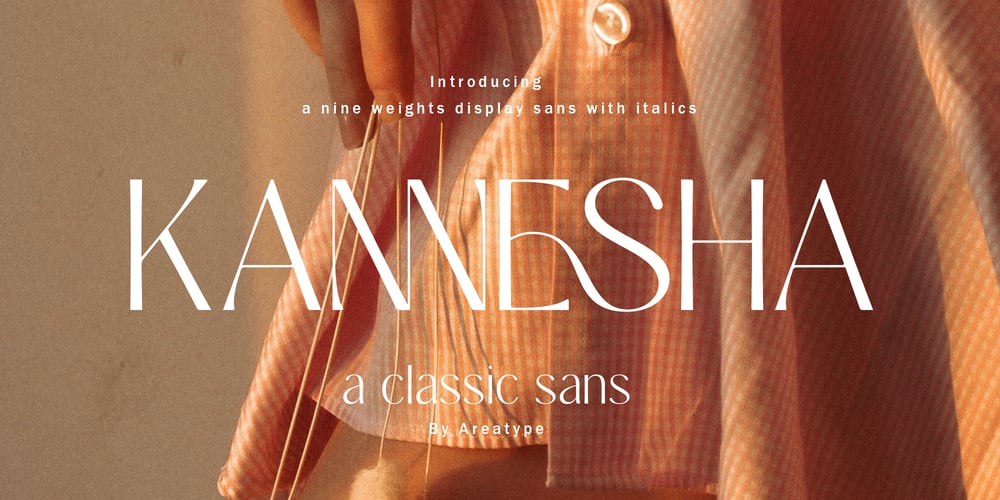
Kannesha
Kannesha font
Kannesha Font Family was designed by Ambia and published by Areatype. Kannesha contains 18 styles and family package options. Kannesha Sans serif is a very versatile font. perfect for magazine images, to wedding invitations, to branding, poster design, and more.Files included:Kannesha FamilyKannesha Italic FamilyNumerals, Punctuation & LigaturesThanks so much for looking,